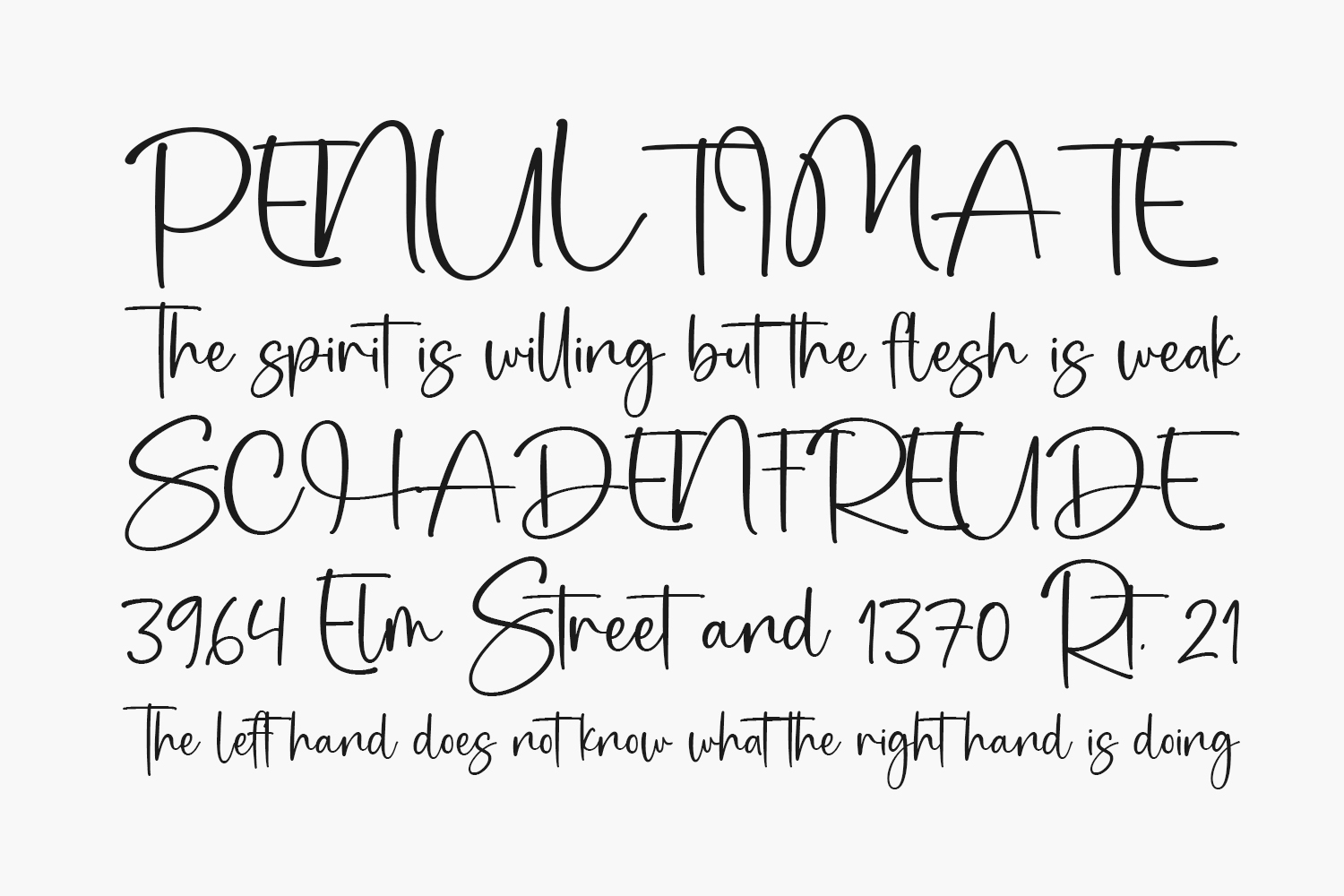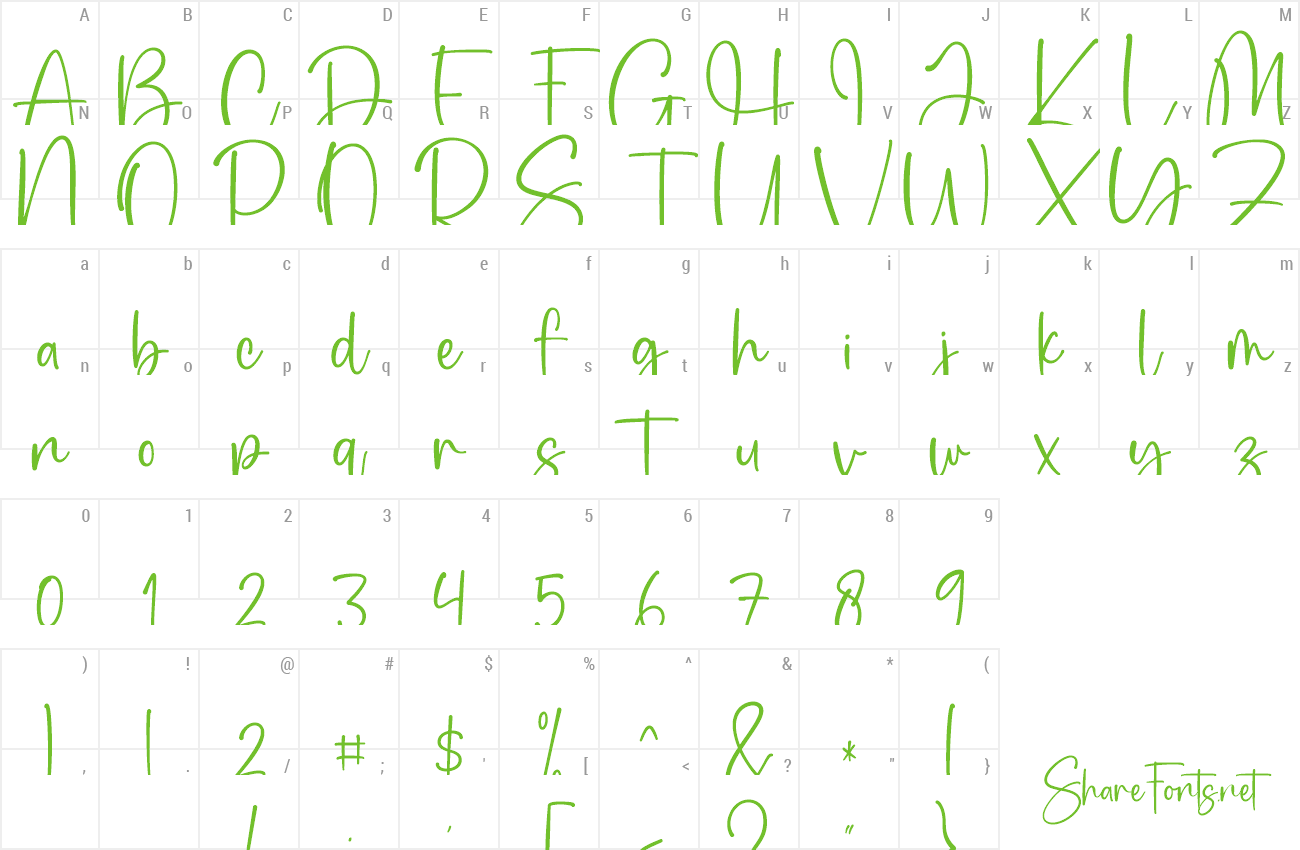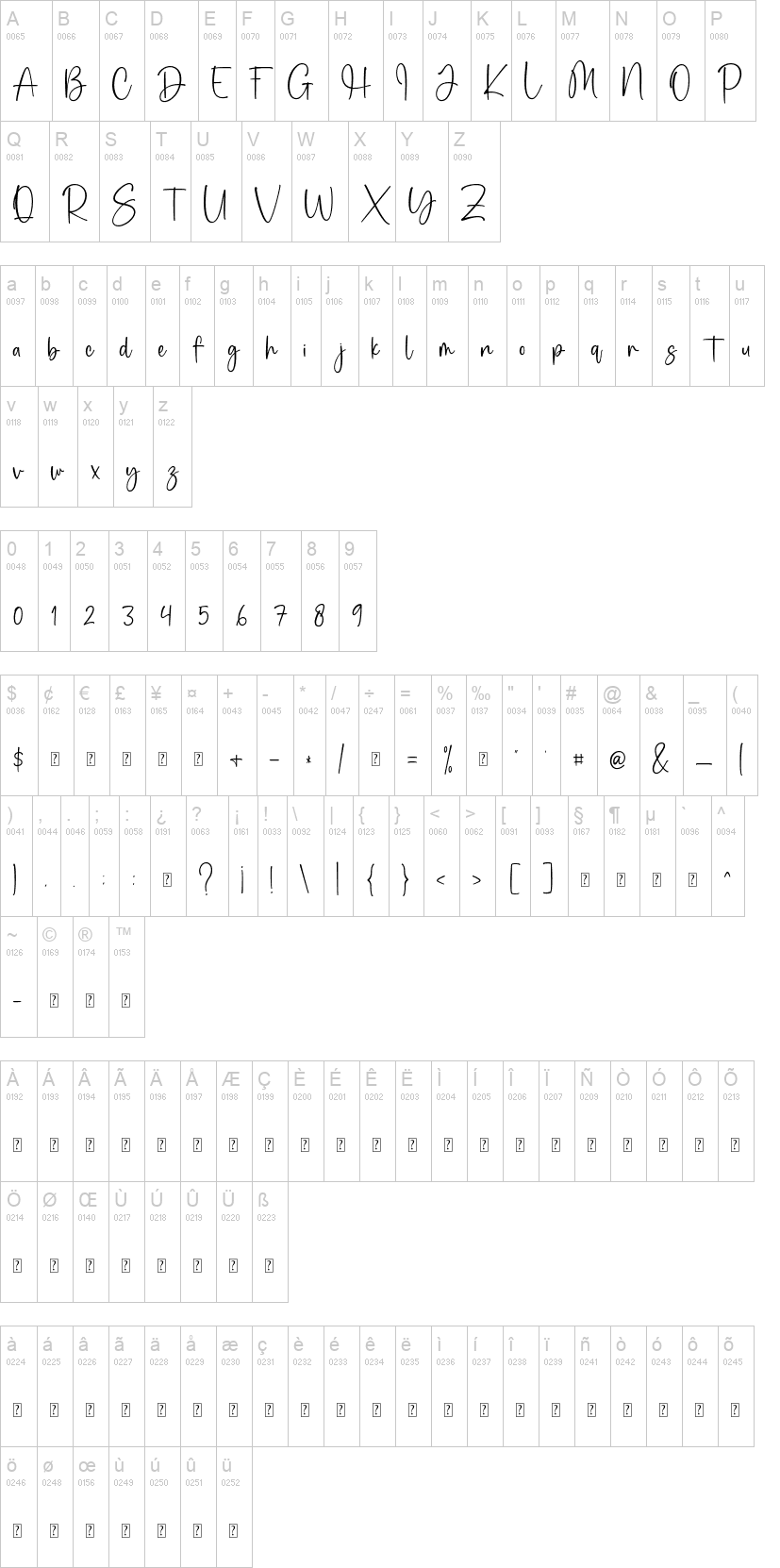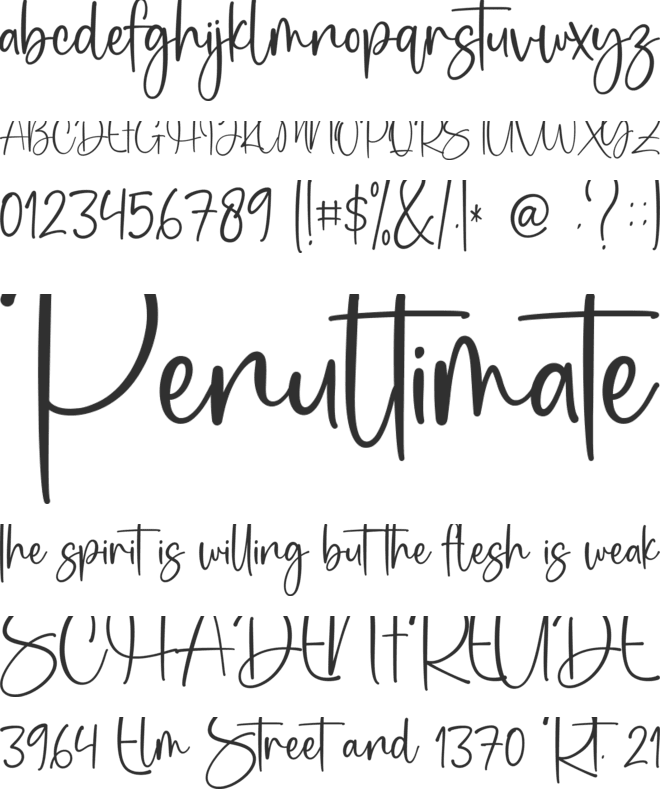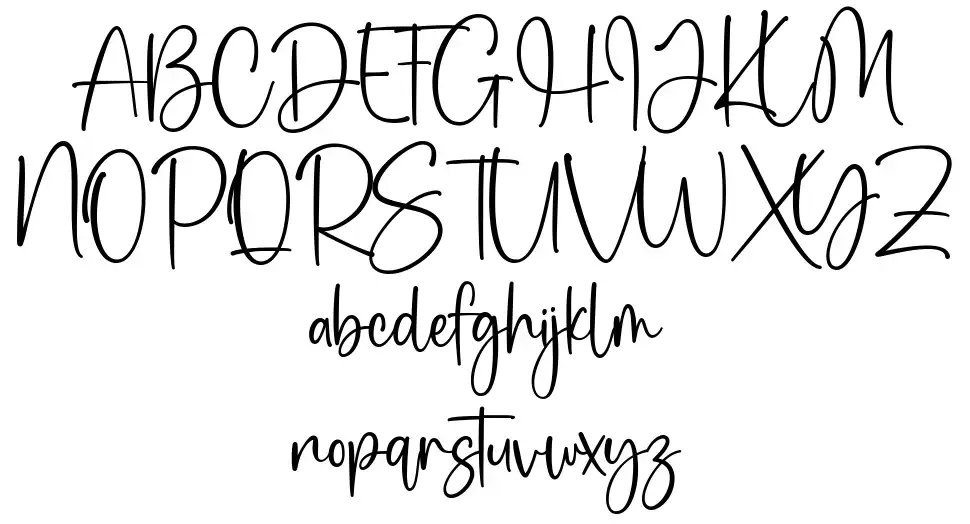
Stay Winter Font
Stay Winter Font - Web stay winter is a lovely script handwritten font featuring charming, playful characters that seem to dance along the baseline. Perfect for creating seasonal designs,. Every font is free to download! Click to find the best 687 free fonts in the winter style. Web looking for winter fonts? Web experience the warmth of winter with this collection of beautiful, free winter fonts. Web stay winter font download.
Web stay winter is a lovely script handwritten font featuring charming, playful characters that seem to dance along the baseline. Web looking for winter fonts? Web stay winter font download. Every font is free to download! Click to find the best 687 free fonts in the winter style. Perfect for creating seasonal designs,. Web experience the warmth of winter with this collection of beautiful, free winter fonts.
Every font is free to download! Web stay winter is a lovely script handwritten font featuring charming, playful characters that seem to dance along the baseline. Perfect for creating seasonal designs,. Web stay winter font download. Web experience the warmth of winter with this collection of beautiful, free winter fonts. Click to find the best 687 free fonts in the winter style. Web looking for winter fonts?
Click to find the best 687 free fonts in the winter style. Every font is free to download! Web stay winter font download. Web looking for winter fonts? Web experience the warmth of winter with this collection of beautiful, free winter fonts.
Click to find the best 687 free fonts in the winter style. Web stay winter is a lovely script handwritten font featuring charming, playful characters that seem to dance along the baseline. Perfect for creating seasonal designs,. Web stay winter font download. Web experience the warmth of winter with this collection of beautiful, free winter fonts.
Web experience the warmth of winter with this collection of beautiful, free winter fonts. Web looking for winter fonts? Web stay winter is a lovely script handwritten font featuring charming, playful characters that seem to dance along the baseline. Web stay winter font download. Click to find the best 687 free fonts in the winter style.
Web stay winter is a lovely script handwritten font featuring charming, playful characters that seem to dance along the baseline. Web stay winter font download. Click to find the best 687 free fonts in the winter style. Every font is free to download! Web experience the warmth of winter with this collection of beautiful, free winter fonts.
Click to find the best 687 free fonts in the winter style. Web experience the warmth of winter with this collection of beautiful, free winter fonts. Perfect for creating seasonal designs,. Web looking for winter fonts? Every font is free to download!
stay winter font
Web experience the warmth of winter with this collection of beautiful, free winter fonts. Perfect for creating seasonal designs,. Web looking for winter fonts? Web stay winter is a lovely script handwritten font featuring charming, playful characters that seem to dance along the baseline. Web stay winter font download.
Stay Winter Font
Web stay winter font download. Web experience the warmth of winter with this collection of beautiful, free winter fonts. Perfect for creating seasonal designs,. Web stay winter is a lovely script handwritten font featuring charming, playful characters that seem to dance along the baseline. Web looking for winter fonts?
stay winter Font Download Free for Desktop & Webfont
Web looking for winter fonts? Web stay winter font download. Perfect for creating seasonal designs,. Web experience the warmth of winter with this collection of beautiful, free winter fonts. Click to find the best 687 free fonts in the winter style.
Stay Winter font by Ramli Setiadi FontRiver
Web stay winter is a lovely script handwritten font featuring charming, playful characters that seem to dance along the baseline. Web stay winter font download. Click to find the best 687 free fonts in the winter style. Web experience the warmth of winter with this collection of beautiful, free winter fonts. Perfect for creating seasonal designs,.
Stay Winter font by Ramli Setiadi FontRiver
Every font is free to download! Perfect for creating seasonal designs,. Web stay winter font download. Click to find the best 687 free fonts in the winter style. Web stay winter is a lovely script handwritten font featuring charming, playful characters that seem to dance along the baseline.
Web Stay Winter Is A Lovely Script Handwritten Font Featuring Charming, Playful Characters That Seem To Dance Along The Baseline.
Perfect for creating seasonal designs,. Click to find the best 687 free fonts in the winter style. Web experience the warmth of winter with this collection of beautiful, free winter fonts. Web looking for winter fonts?